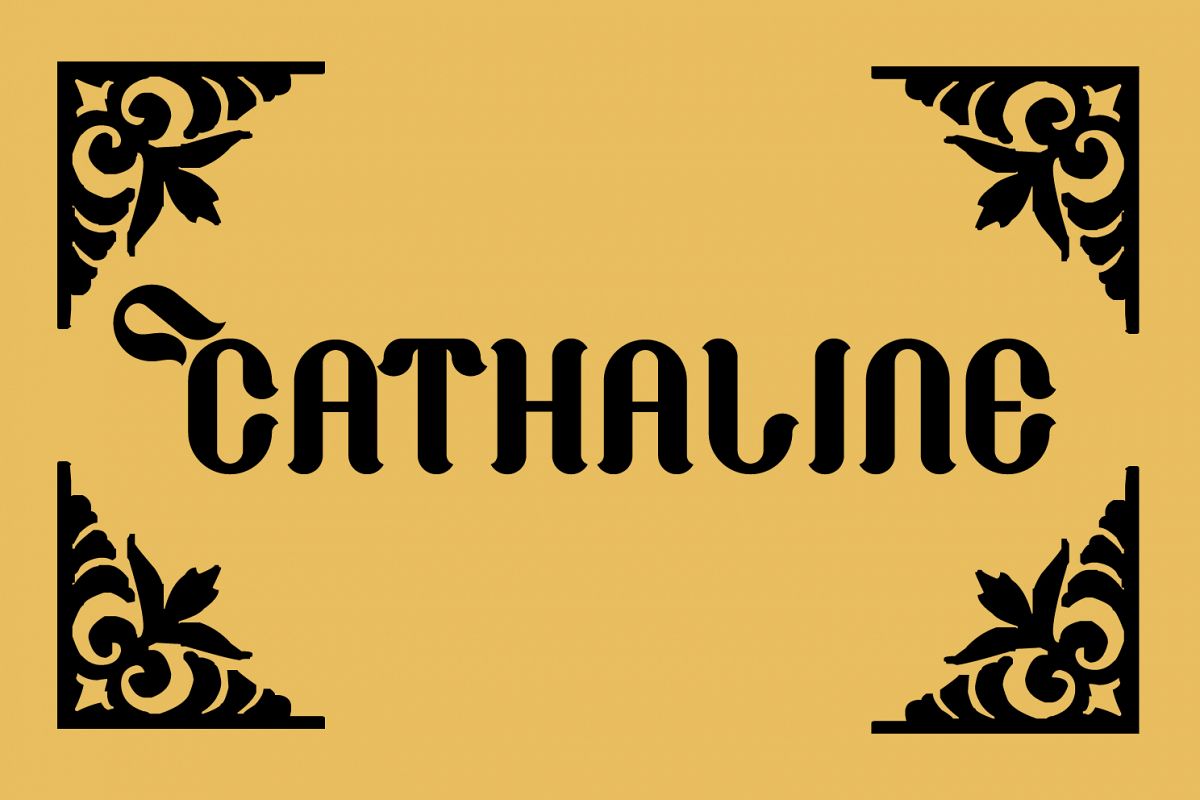
Cathaline
Medieval typography with very elegant forms
Unlike the previous source, in this the lower case letters are smaller.
These sources have been kerning.